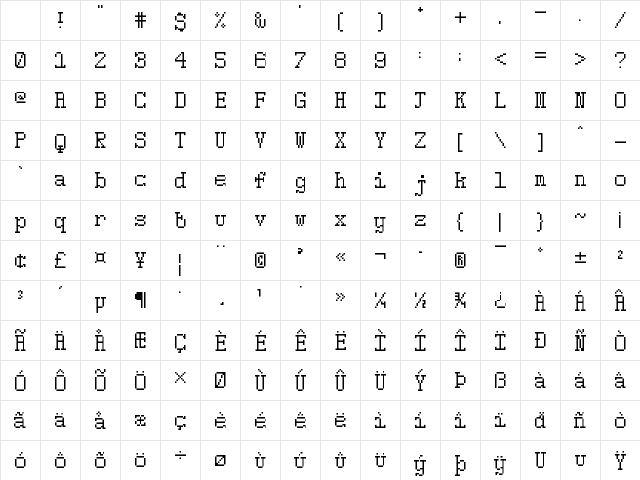
Complete 5Pixwriter Regular glyph index. Displaying only characters natively supported by 5Pixwriter Regular font.
5Pixwriter is a composed and adaptable typeface that performs quietly and consistently across a wide range of design contexts.